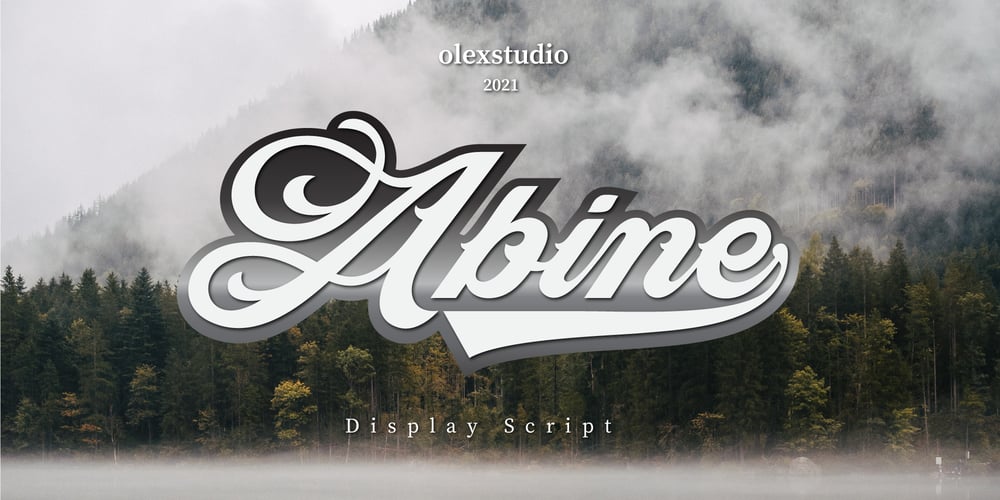
Abine Font Family was designed by Firman Syah and published by Olexstudio. Abine contains 1 styles and family package options. Abine – Display Script will look gorgeous on all your designs, invitation, poster design, book design, branding materials, logo’s, t-shirt and all project design other.Abine – Display Script contains standard characters, Uppercase, Lowercase, Swashes, numbers, punctuation, ligatures and international glyphs